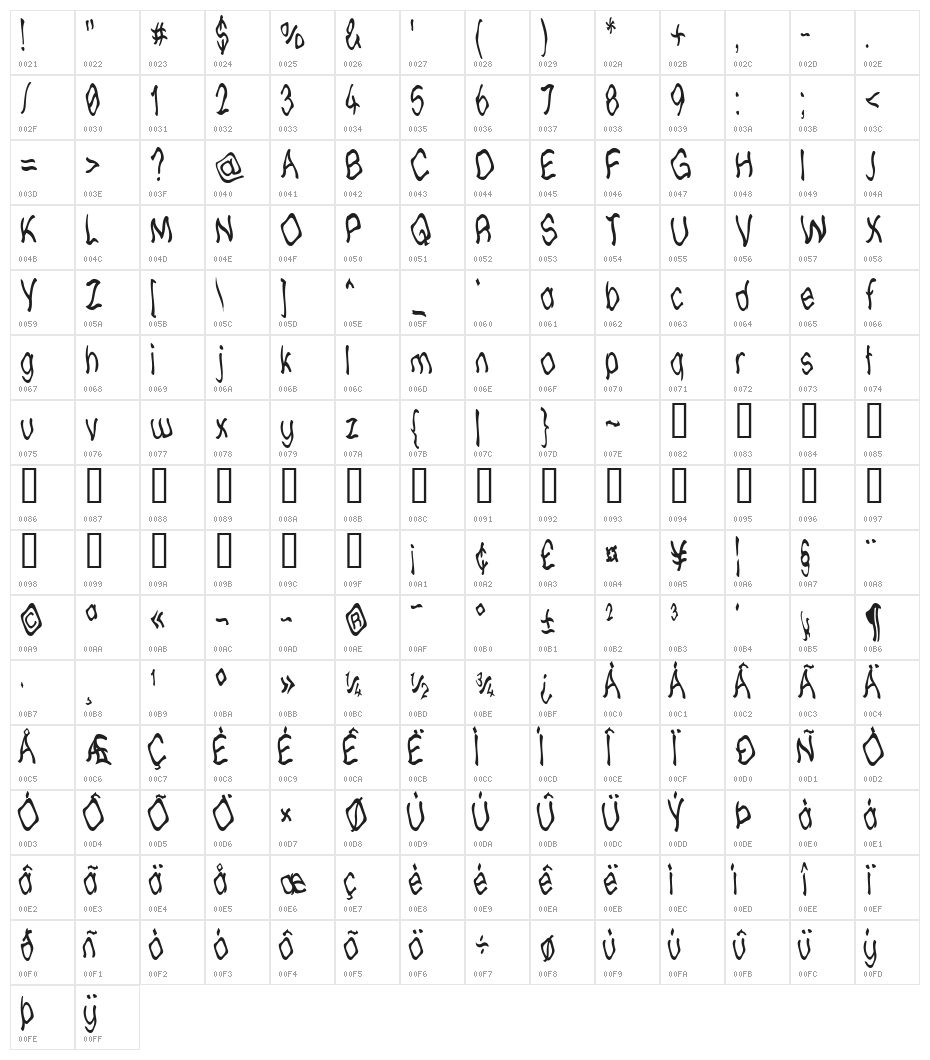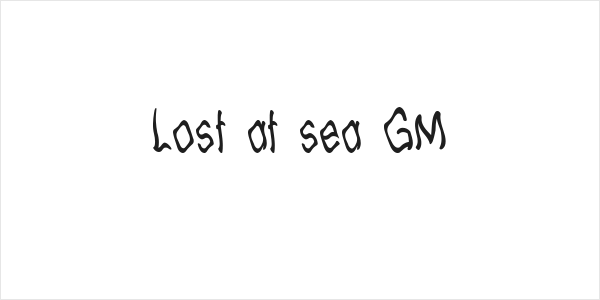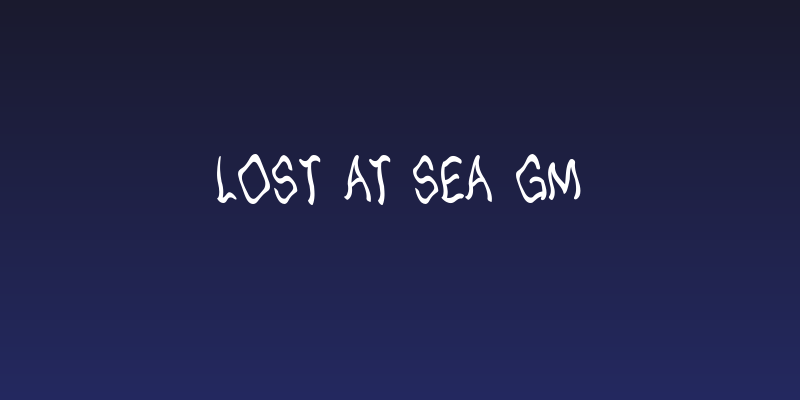
Lost at sea GM Font
Lost at sea GM Description
This font features a whimsical and hand-drawn style, reminiscent of letters scrawled in the sand or on a weathered piece of parchment. The characters are unevenly shaped, with a playful and organic flow that suggests movement, as if they are swaying with the ocean breeze. The strokes are irregular, with varying thickness that adds to the casual and informal feel of the font. It captures a sense of adventure and spontaneity, making it ideal for projects that require a touch of creativity and uniqueness. The font includes a full set of uppercase and lowercase letters, numbers, and a variety of special characters, all maintaining the same distinctive style.
| Proposed Projects | Great for children's books, creative posters, beach-themed events, and artistic branding. |